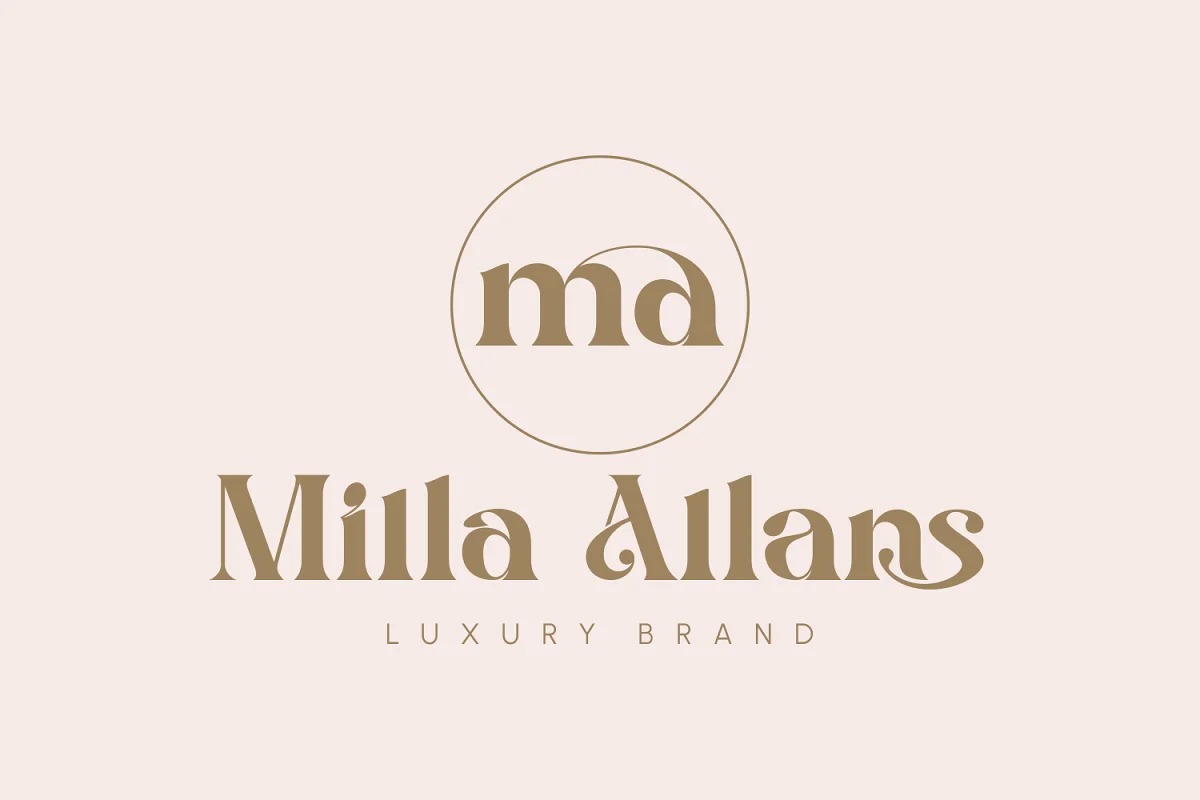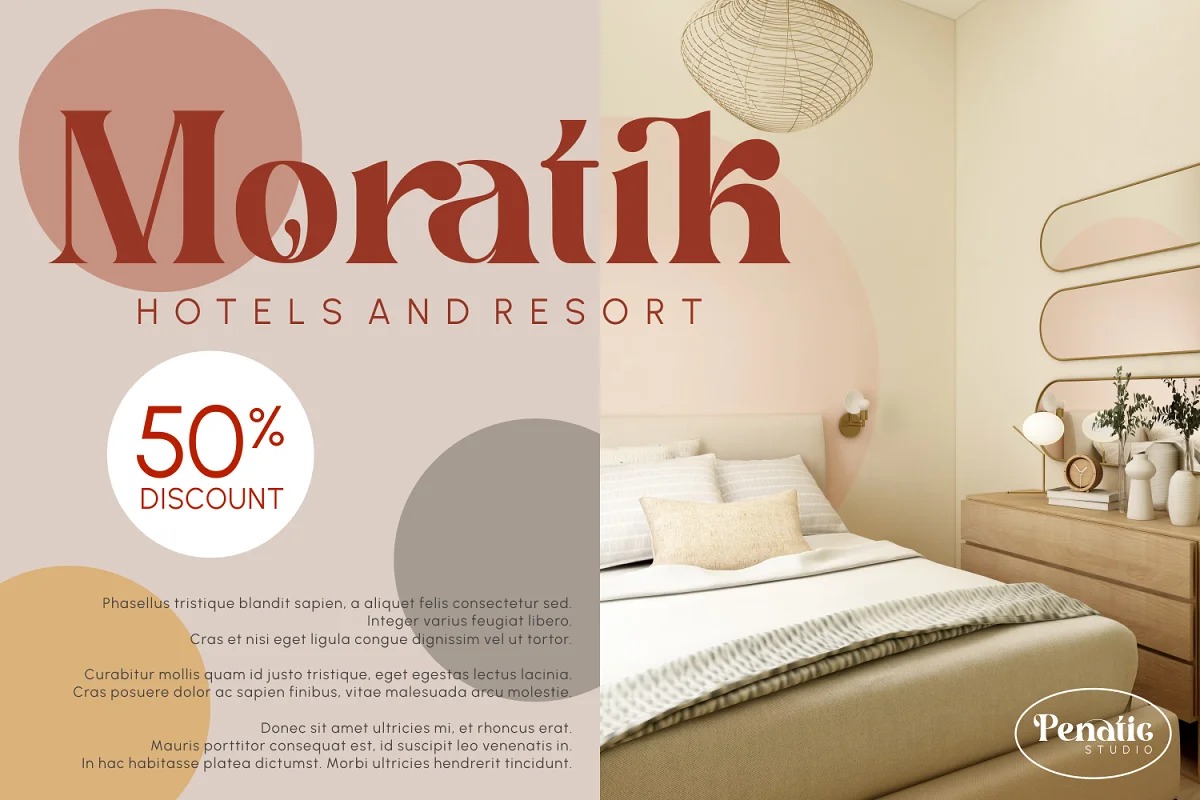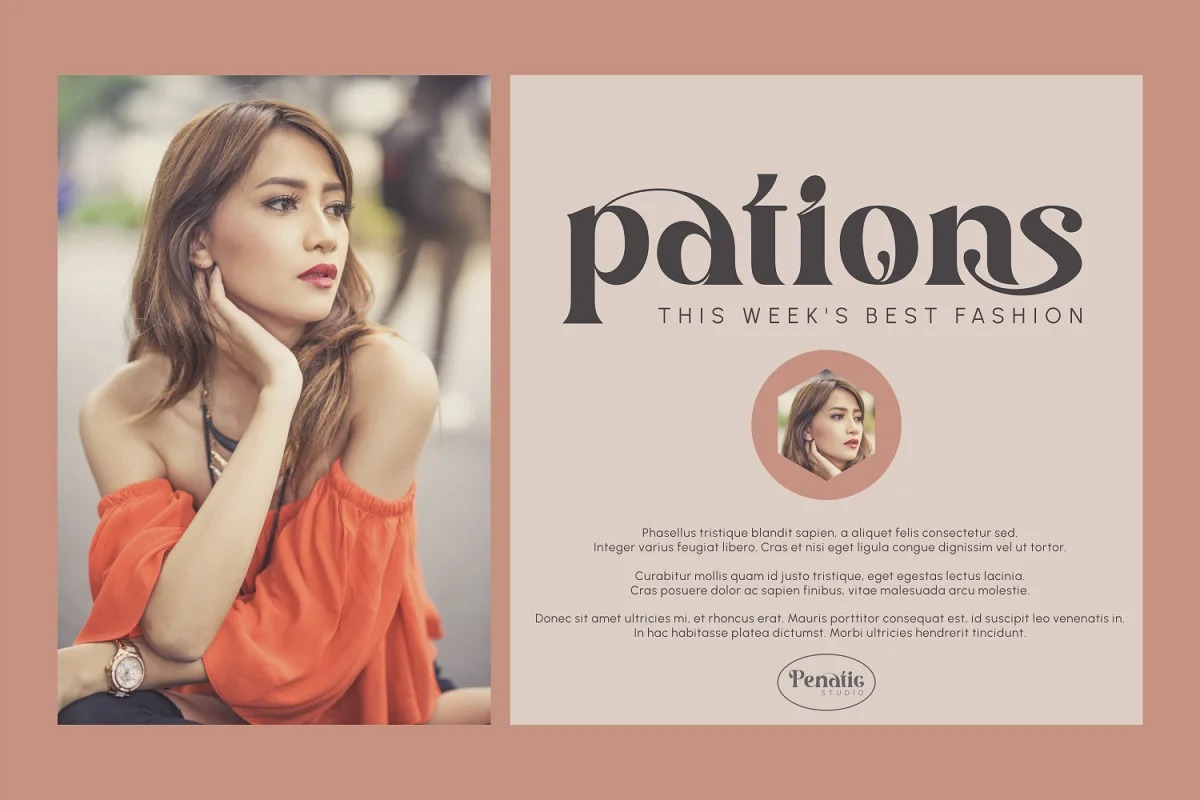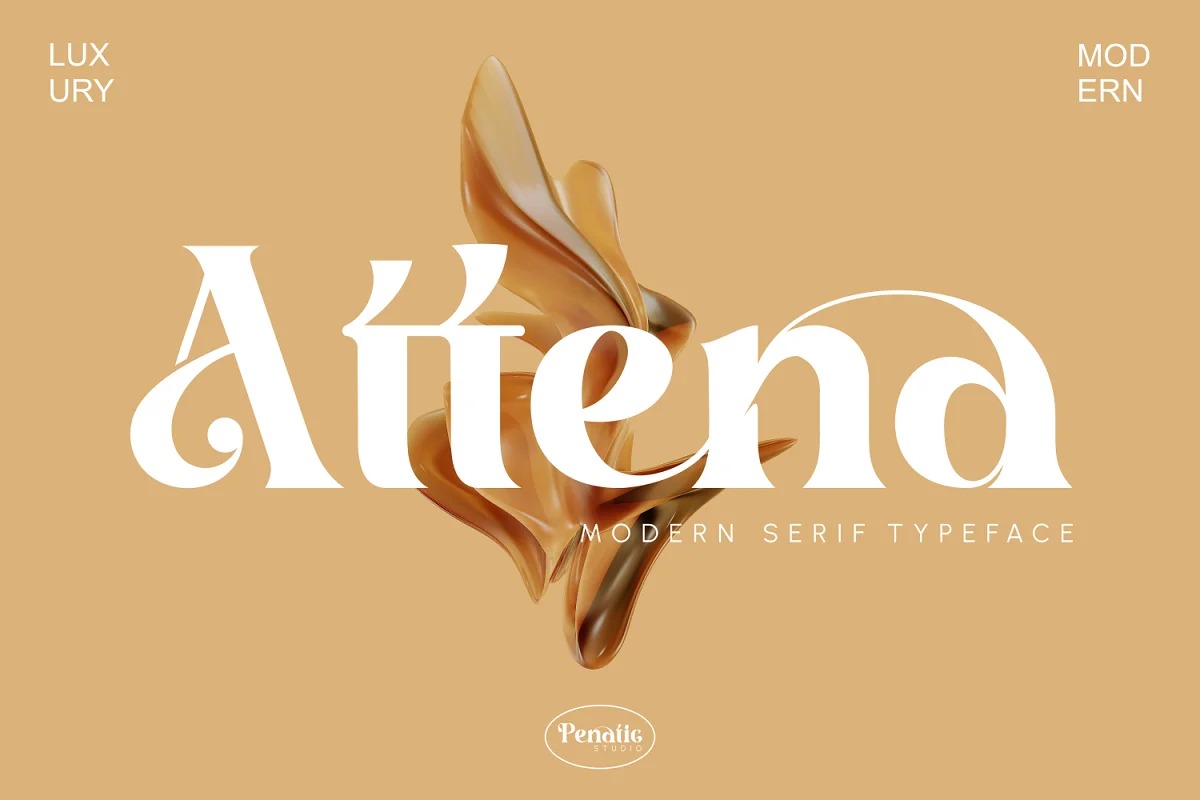
Attena Font
Attena Serif Font
It’s a modern and classic serif typeface created by Penatic Studio with modern touch. Specially designed for luxury, elegant and feminine projects. And very suitable for use for all brand identity needs, invitation cards, poster designs and more.
font that looks modern and also suitable for classic styles because of the appropriate thickness of the font. And it is supported by multilingual.